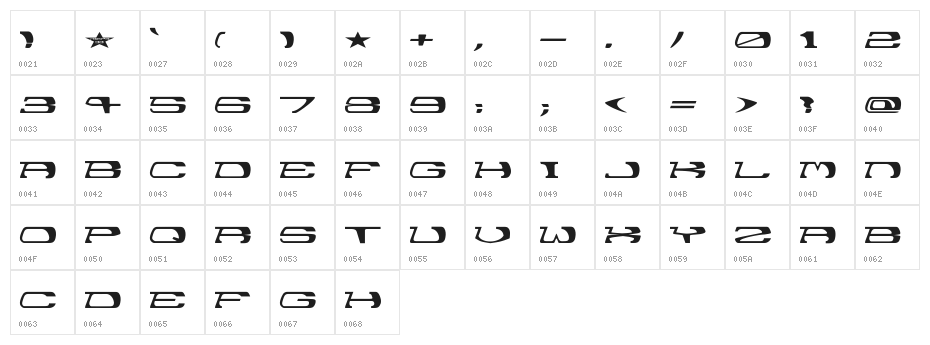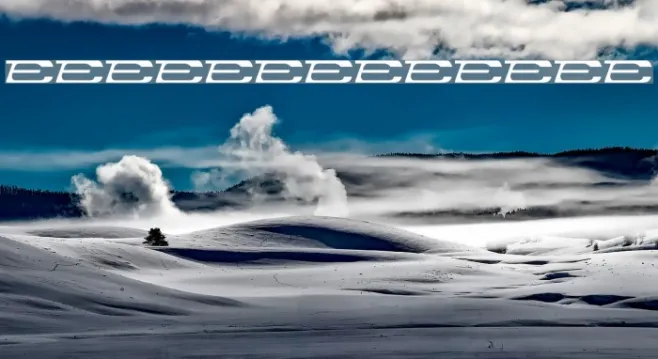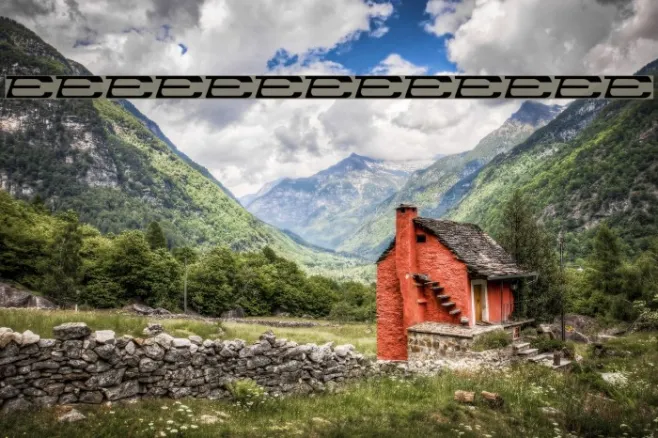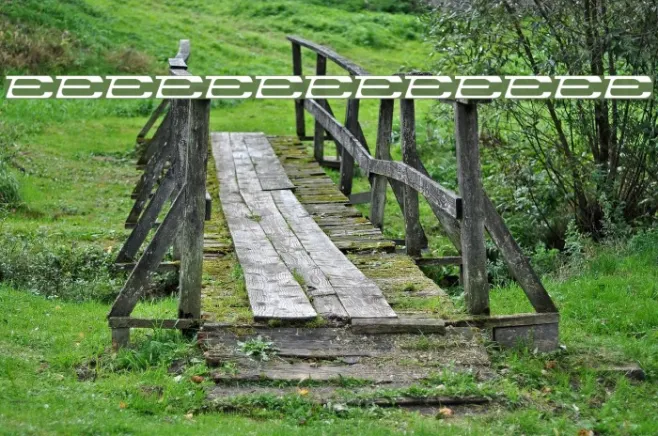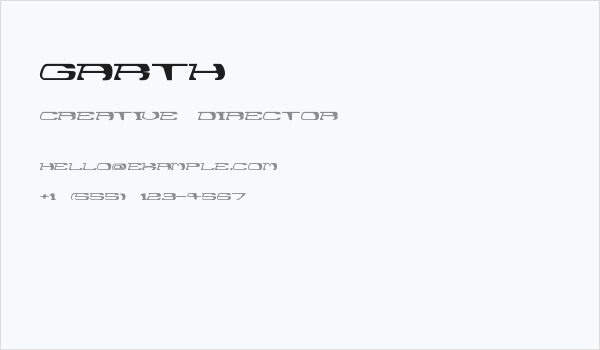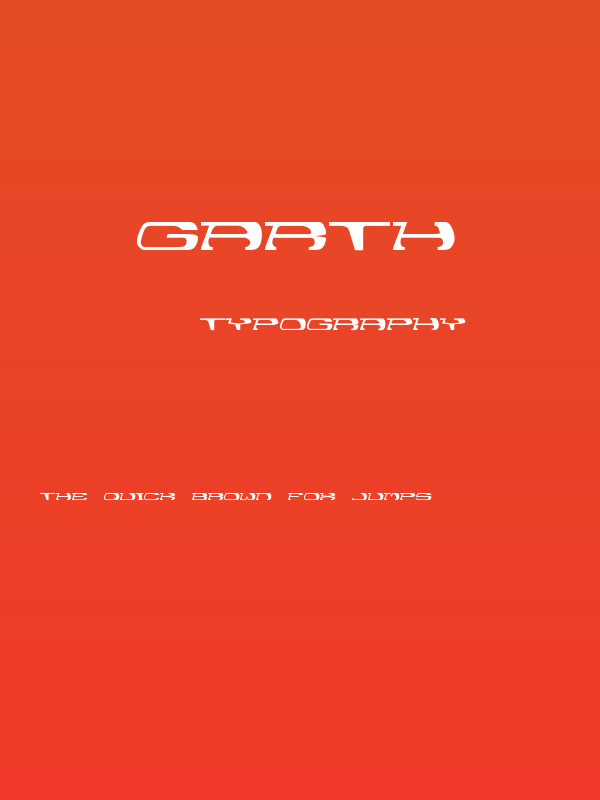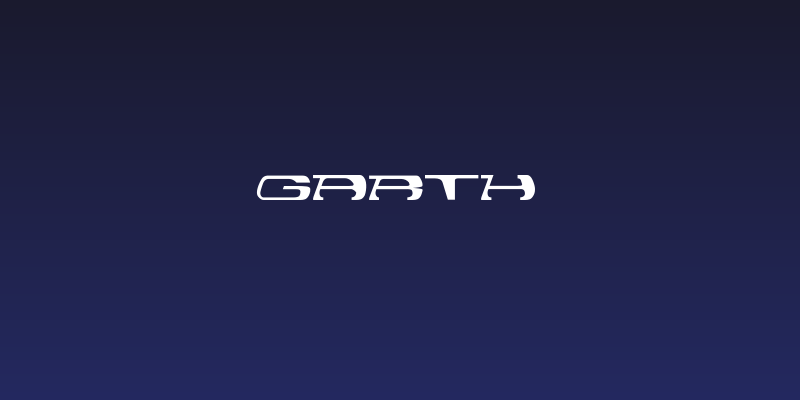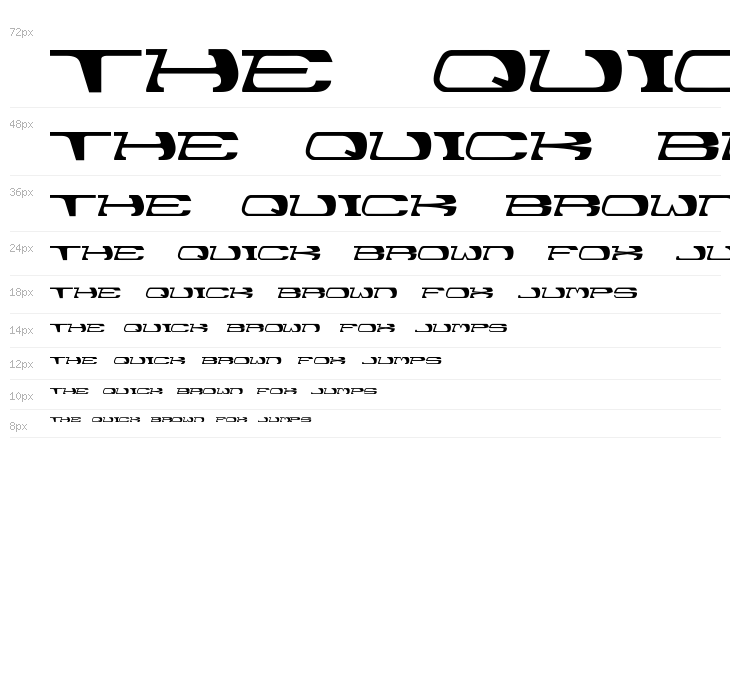
garth Font
garth Description
This font features a highly decorative and futuristic design, characterized by its unique geometric shapes and sharp angles. The letters are constructed with a consistent width and a bold appearance, creating a strong visual impact. The style is reminiscent of digital or sci-fi themes, with a modern edge that makes it stand out. The uniformity in the design of each character suggests a monospaced approach, although the overall aesthetic leans towards a decorative display typeface. The font's distinctiveness is further enhanced by its high contrast in stroke thickness, adding to its bold and striking presence.
| Proposed Projects | Ideal for sci-fi themed projects, digital interfaces, video game graphics, or any creative work requiring a modern, tech-inspired look. |